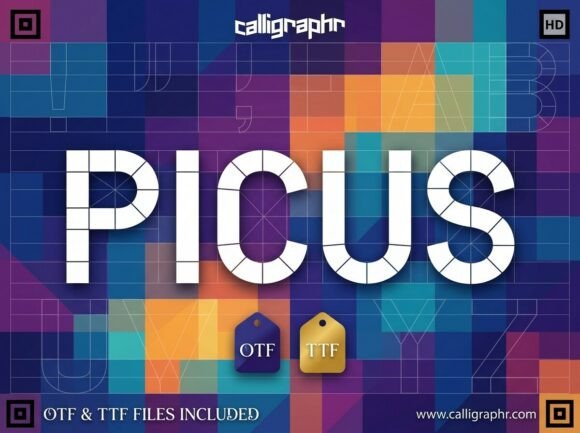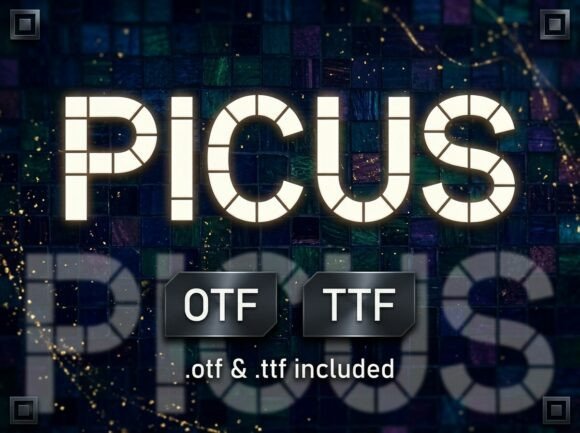
Introduction to Picus Font
Have you ever been working on a creative project, pouring your heart and soul into it, and then… you need that perfect font to make it truly stand out? That moment of frustration is all too familiar for many designers. But what if you had a secret weapon in your arsenal, a font that would elevate your design and leave a lasting impression? Enter the Picus Font, a stunning decorative display font designed to be the center of attention.
With its unique artistic elements and strong visual personality, the Picus Font is the perfect addition to any designer’s toolkit. Whether you’re working on a bold headline, artistic logo, or creative packaging, this high-quality font will give your design a professional and polished finish. And with its transparent background, it’s easy to layer over your design without any fuss.
- Unique characteristics: The Picus Font boasts a unique, modern design with a touch of elegance, making it perfect for creative projects and designs.
Honest Review: Picus Font
As a designer, I’m always on the lookout for high-quality fonts to elevate my creative projects. Recently, I had the chance to try out the Picus Font, and I’m excited to share my honest review with you.
What works well: ✨ The Picus Font is a beautiful, elegant font that’s perfect for a wide range of design projects. Its high quality and crisp lines make it a joy to work with, and the transparent background allows for seamless layering and manipulation. The font also comes in a free download, making it an excellent resource for designers on a budget.
What doesn’t work well: ⚠️ While the Picus Font is excellent in many ways, it’s not without its limitations. The font’s limited character set can make it less suitable for complex, multi-language projects. Additionally, the font’s aesthetic may not be to everyone’s taste, so it’s essential to consider your design goals and audience before using it.
Overall impression: I’m thoroughly impressed with the Picus Font, and I think it’s an excellent addition to any designer’s toolkit. With its high-quality design, transparent background, and free download, it’s a fantastic resource for creative projects. Just be mindful of its limitations, and you’ll be all set to create stunning designs with the Picus Font.
Picus Font
Tips for getting the most out of Picus Font:
- Use it for headings and titles to add a touch of elegance to your design.
- Experiment with different font sizes and colors to create a visually appealing effect.
- Combine Picus Font with other design elements to create a unique and creative project.
Common use cases for Picus Font include:
- Branding and logo design.
- Business cards and brochures.